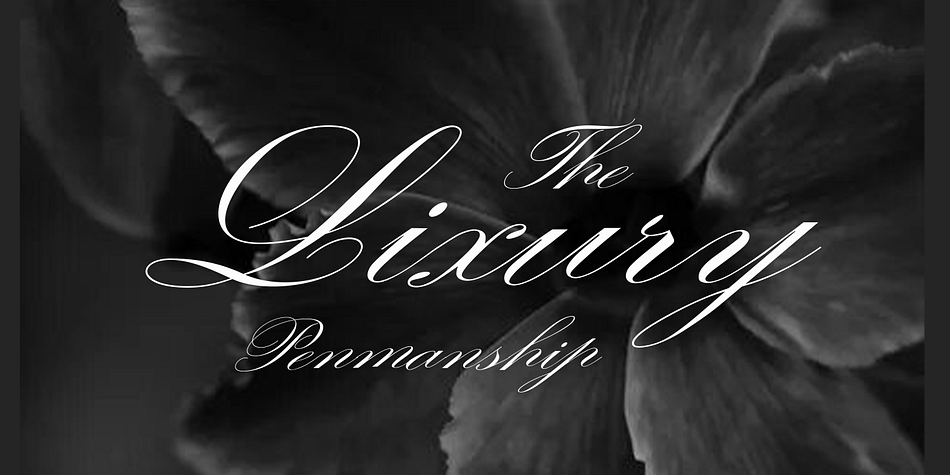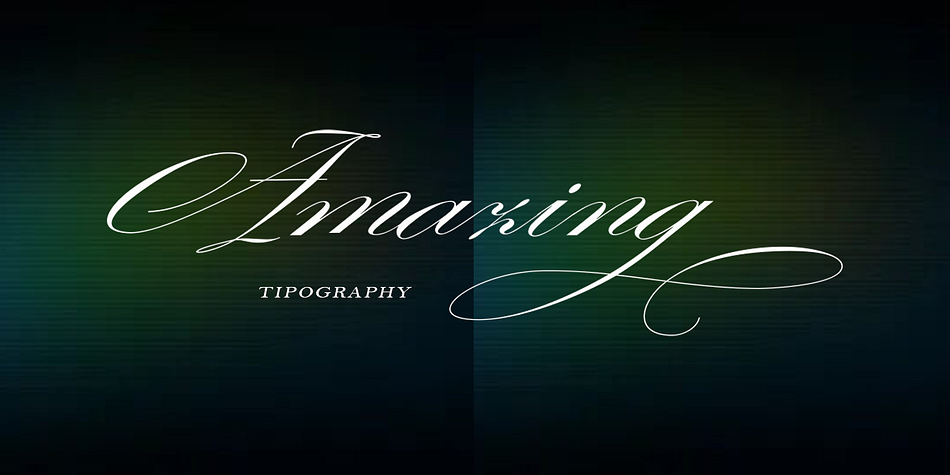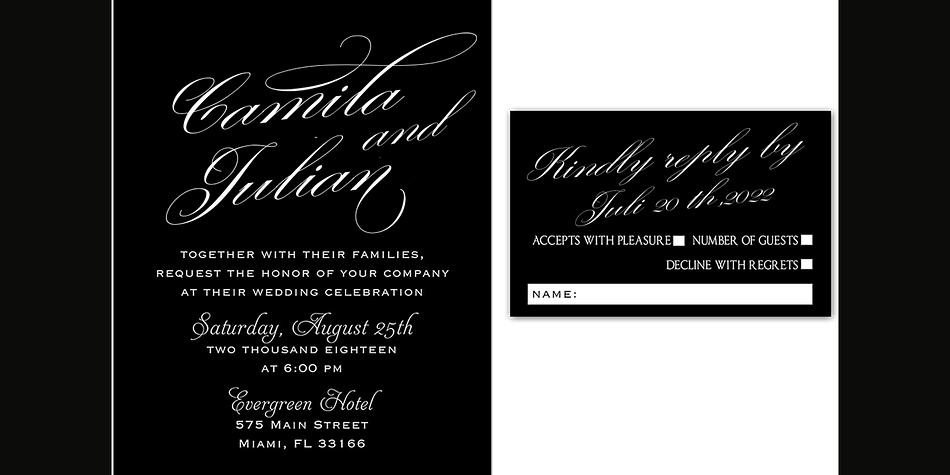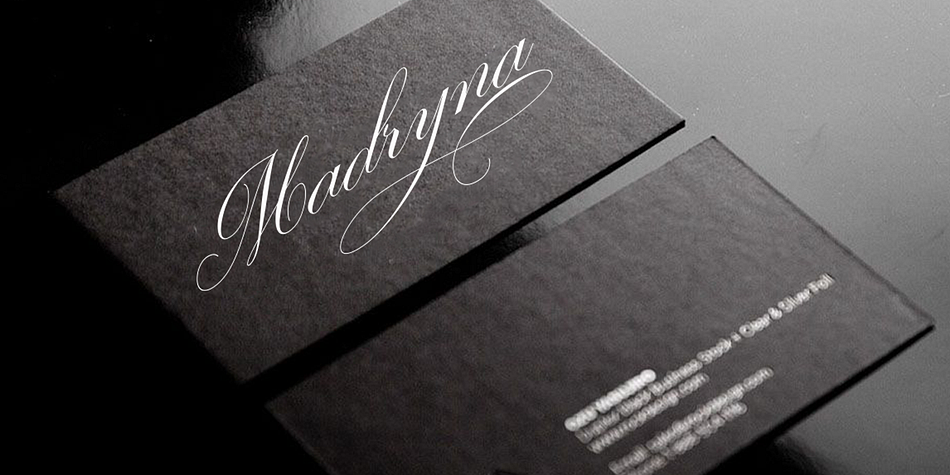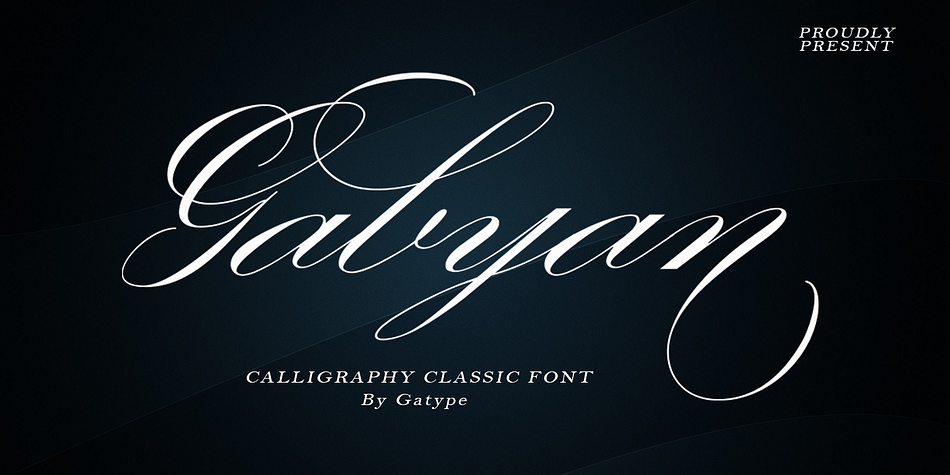
Gabyan
Gabyan is a script font family published by Gatype.
Gabyan is elegant calligraphy font. This font is casual and pretty with swashes. Can used for various purposes. such as logo, product packaging, wedding invitations, branding, headlines, signage, labels, signature, book covers, posters, quotes and more.